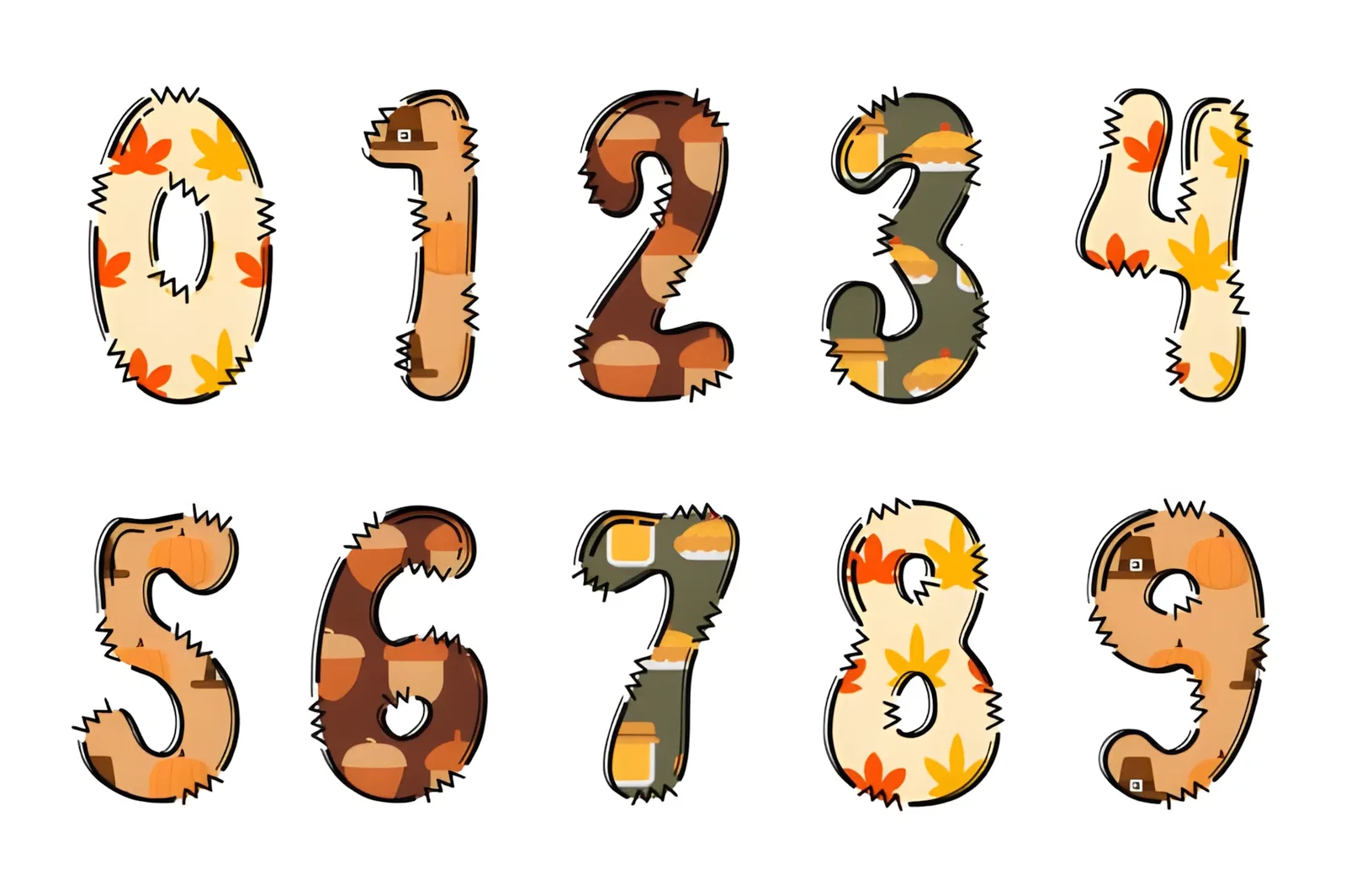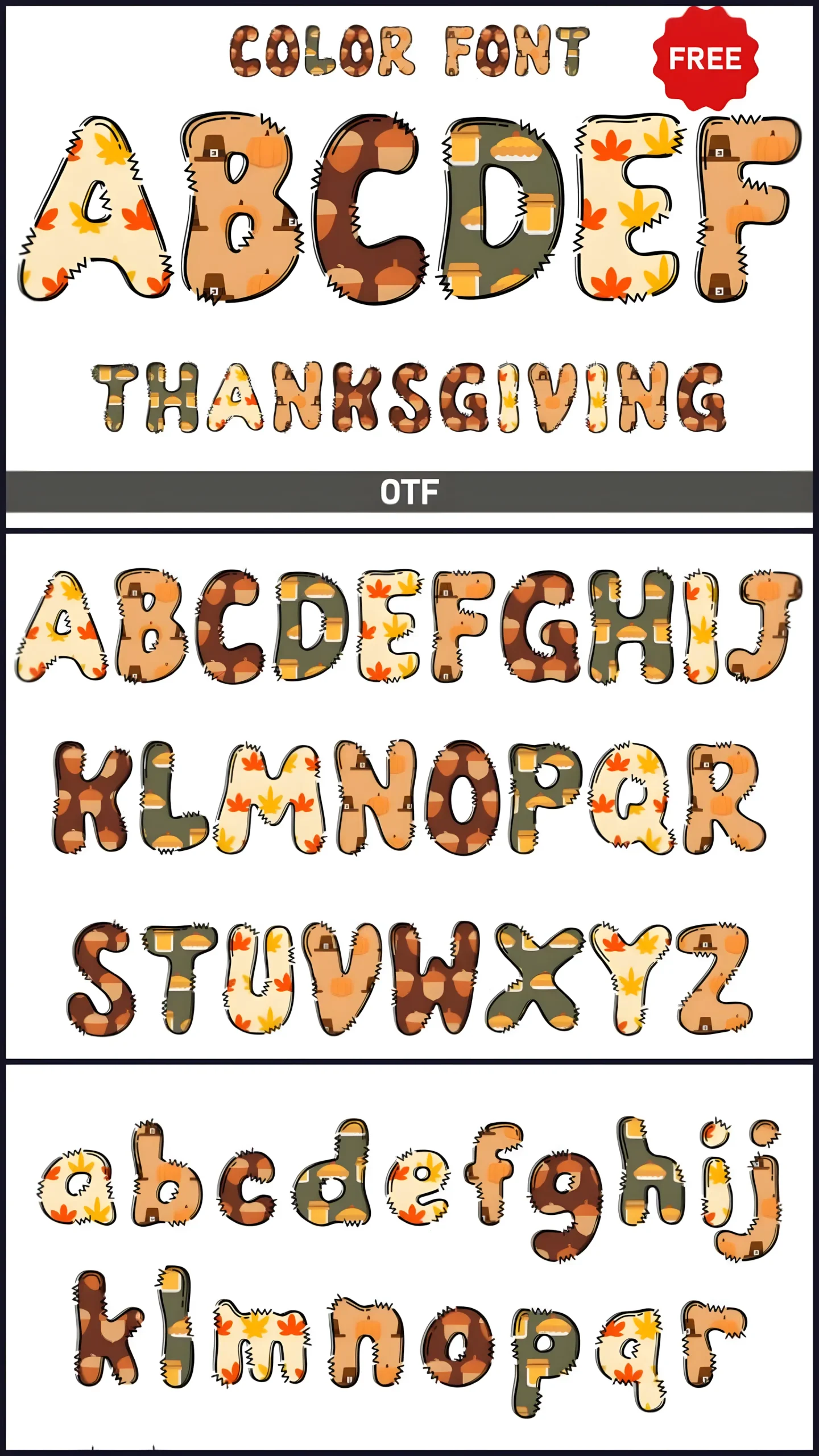
Seasonal fonts often rely on obvious symbols, but Thanksgiving Font takes a more creative and playful approach. Instead of simple outlines or flat shapes, this typeface turns every letter into a small illustrated element filled with autumn patterns. Text becomes decorative on its own, without the need for extra graphics.
This is a colorful display font designed for fall and Thanksgiving-themed projects. It feels warm, cheerful, and friendly, making it especially suitable for designs meant to attract attention and create a welcoming mood.
Visual Style and First Impression
Thanksgiving Font immediately stands out as a color font. Each letter is filled with detailed autumn textures inspired by fall elements such as leaves, pumpkins, and seasonal patterns. The characters feel soft and playful rather than sharp or formal.
Despite the decorative nature, the shapes of the letters remain clear. The outlines are easy to recognize, which helps maintain readability even with the added color and texture. This balance between illustration and structure makes the font usable, not just visually interesting.
The overall impression is cozy and festive, perfectly aligned with fall celebrations and family-oriented themes.
Designed for Playful and Artistic Projects
This font is designed to convey a fun and artistic feeling. It fits naturally into projects that aim to look cheerful, colorful, and expressive rather than minimal or corporate.
Common use cases include:
- children’s books
- posters and flyers
- invitations and greeting cards
- seasonal decorations
- playful branding elements
The style feels especially suitable for designs created for kids, families, and community events, where warmth and friendliness matter more than strict formality.
Where Thanksgiving Font Works Best
Invitations and Greeting Cards
Thanksgiving Font feels especially at home on invitations and greeting cards. The illustrated letters add personality and charm, making text feel more personal and engaging.
It works well for:
- Thanksgiving dinner invitations
- holiday greeting cards
- seasonal messages
- printable invitations
Because the font already includes decorative details, designs can stay simple while still feeling complete.
Posters and Seasonal Graphics
For posters and banners, Thanksgiving Font delivers instant seasonal context. Headlines set in this typeface immediately communicate fall and celebration.
It works well for:
- Thanksgiving event posters
- autumn festival flyers
- classroom decorations
- seasonal announcements
The bold shapes and color details help the text stand out without additional visual clutter.
Educational and Children’s Projects
Thanksgiving Font is often used in educational materials and children-focused designs. The playful style keeps content visually engaging while remaining readable.
It fits naturally into:
- classroom posters
- worksheets and covers
- children’s books
- school event materials
The font supports a friendly learning environment without feeling distracting.
Readability and Usage Notes
Thanksgiving Font is a display font, not a body text font. It performs best in short text elements such as titles, names, and highlighted phrases.
Spacing is important. Giving the letters enough room allows the color details to remain clear and prevents the design from feeling crowded. Pairing it with a clean, simple font for longer text helps maintain balance and readability.
Used correctly, the font stays visually appealing and easy to understand.
Emotional Tone and Design Feel
The emotional tone of Thanksgiving Font is cheerful and welcoming. It feels playful rather than formal, which makes it ideal for projects that aim to bring people together.
Instead of focusing on tradition alone, the font leans into creativity and fun. It supports designs that feel warm, inclusive, and family-friendly — perfect for fall and Thanksgiving themes.
Thanksgiving Font turns typography into illustration. By combining readable letterforms with colorful autumn artwork, it creates text that feels festive, friendly, and full of character.
For designers and creators working on fall or Thanksgiving-themed projects, this font offers a simple way to add warmth and personality without relying on extra graphics. Used thoughtfully, it helps designs feel joyful, seasonal, and visually engaging.